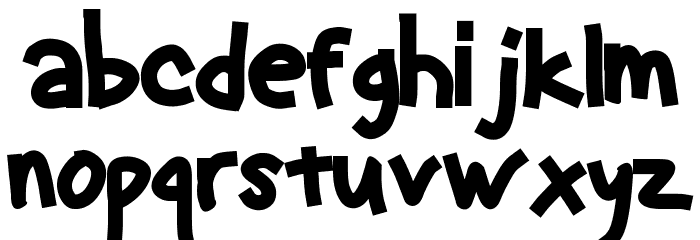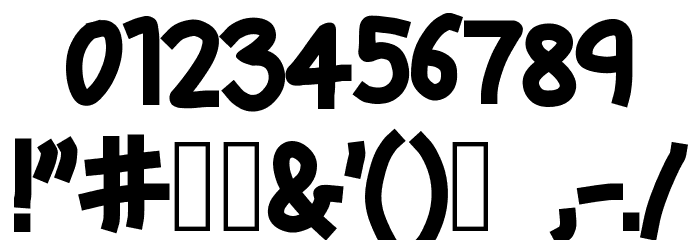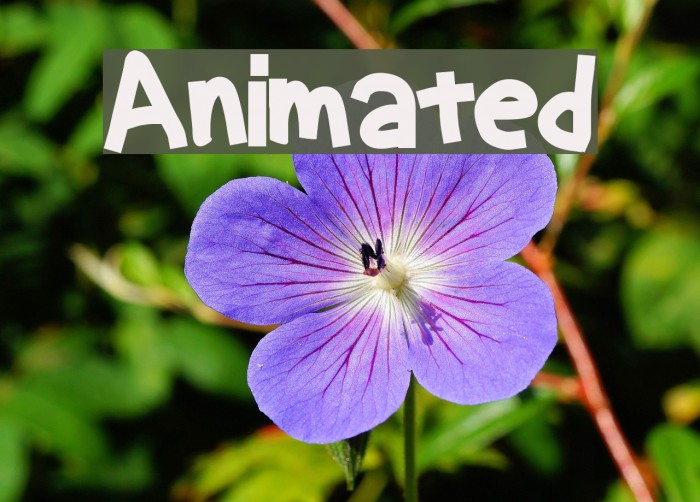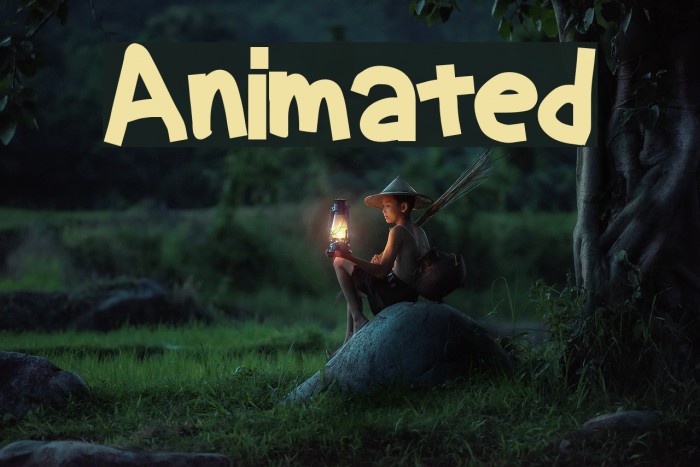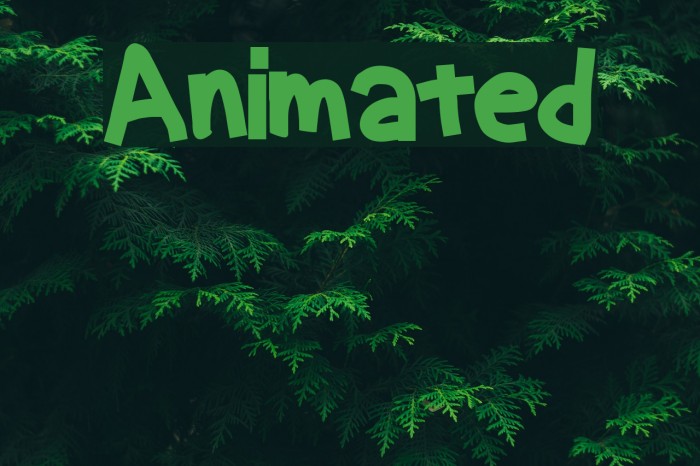
Animated Font
This font features a playful and bold style with a hand-drawn appearance. The letters are slightly irregular, giving it a casual and informal look. The uppercase and lowercase characters maintain a consistent weight, contributing to its bold presence. The numbers and special characters follow the same playful design, making the font suitable for creative and fun projects. Its thick strokes and rounded edges add to its friendly and approachable feel.
A playful, bold, and hand-drawn style font with a casual appearance.
- Proposed Projects: Ideal for children's books, comic strips, playful branding, and informal event invitations.
- Overall Style: Playful